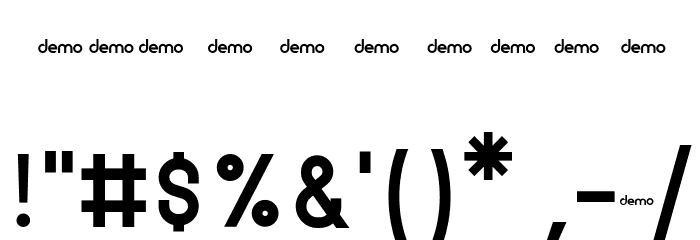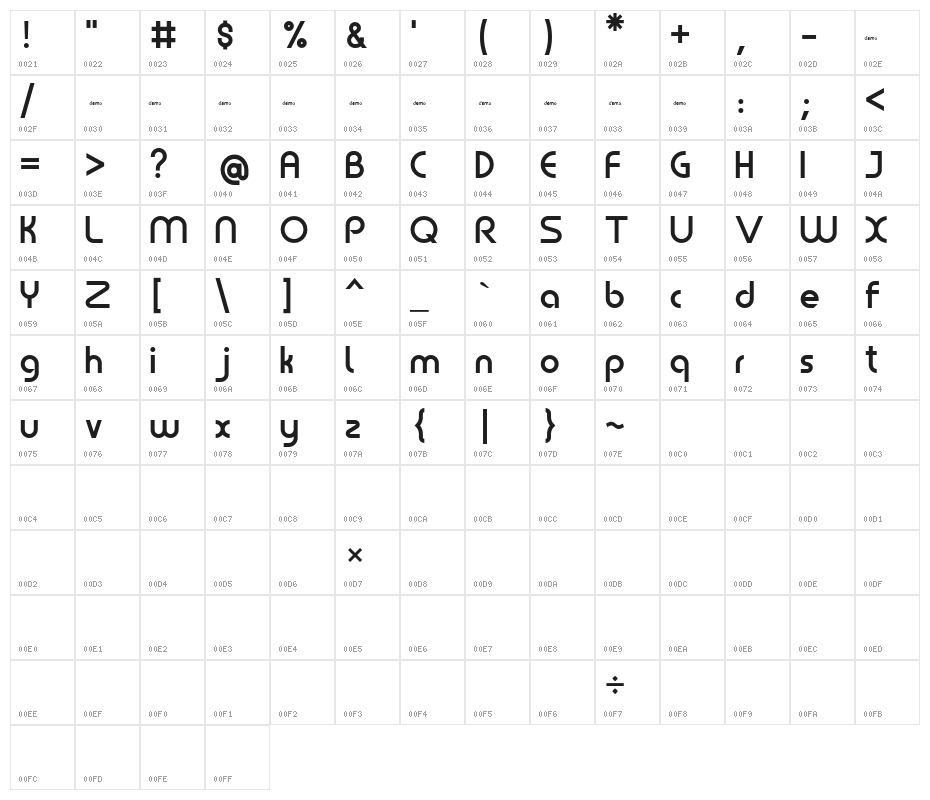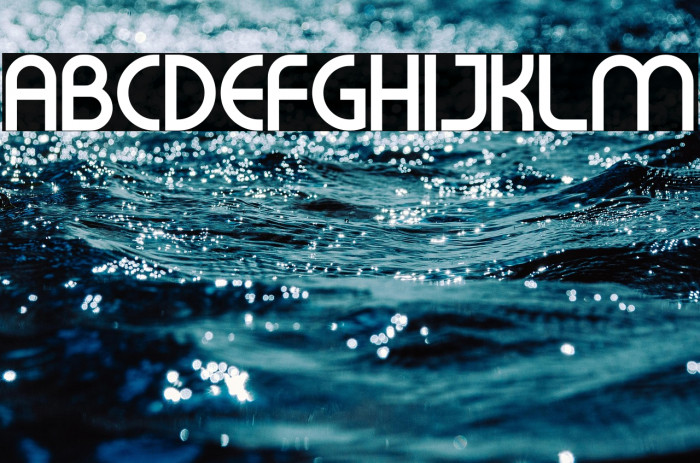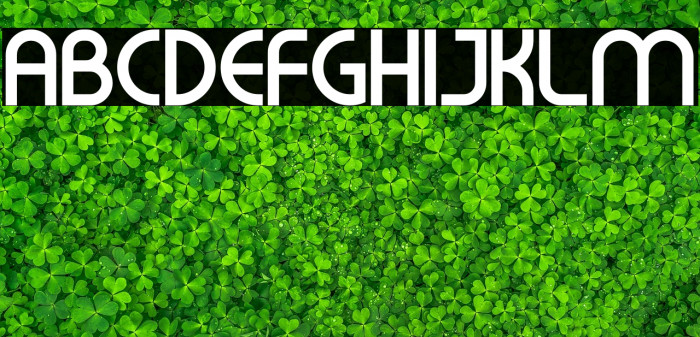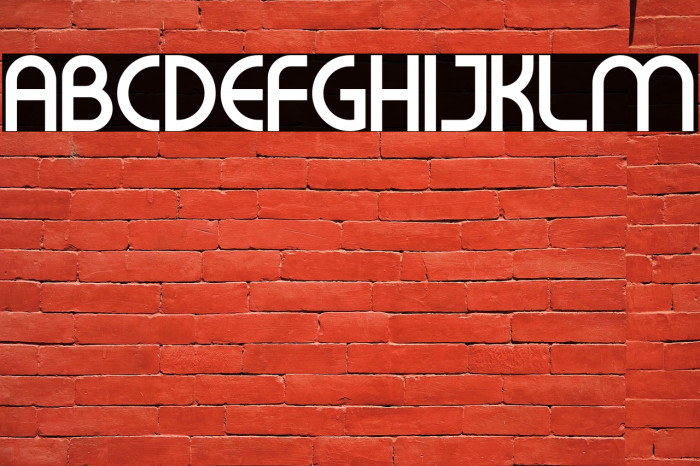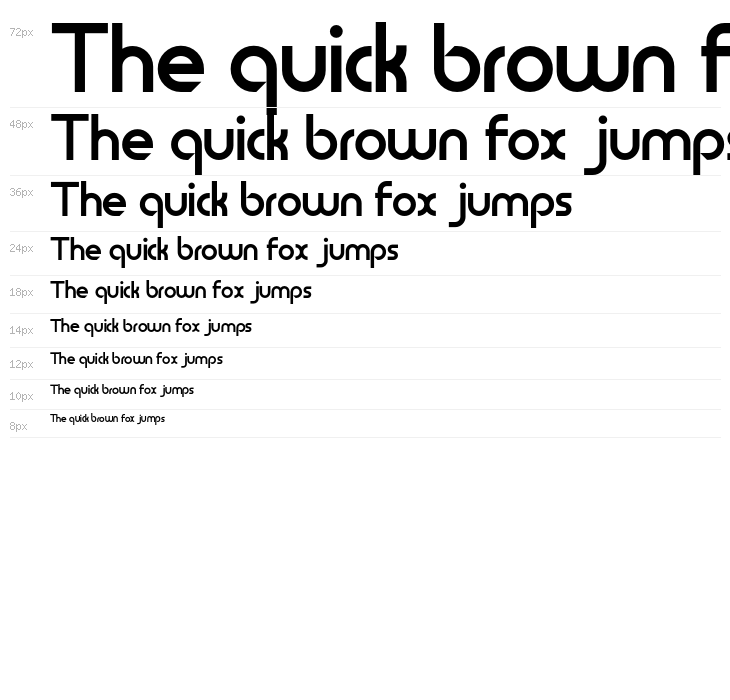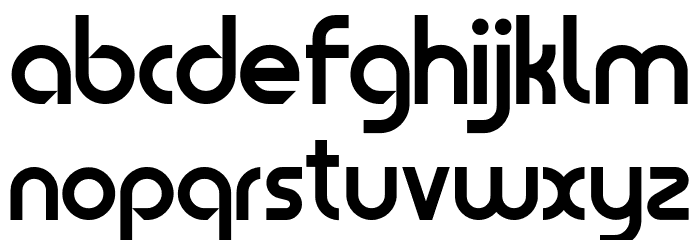
GraysonDemo Font
GraysonDemo Description
This font features a modern and sleek design with a geometric sans-serif style. The characters are clean and rounded, offering a contemporary look that is both stylish and versatile. The uppercase letters are bold and prominent, while the lowercase letters maintain a consistent flow with smooth curves. The numerals and special characters are designed to match the overall aesthetic, providing a cohesive appearance. This font is suitable for a variety of applications, from digital media to print, and can be used to create a professional and polished look.
| Use Case | Headlines, Logos, Digital media |
| Proposed Projects | Ideal for branding, web design, advertising, and editorial projects. |